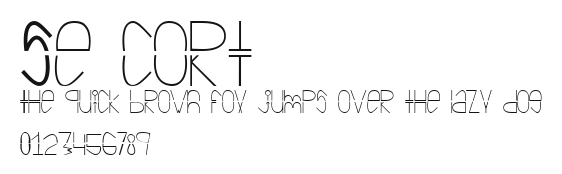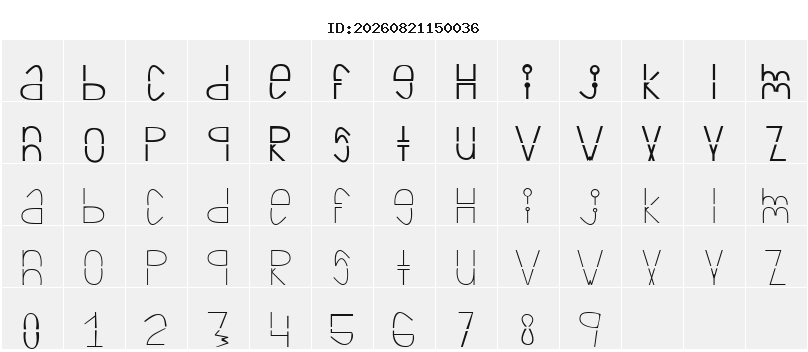
About Se cort—.ttf
Se cort—.ttf is a modern, elegant sans-serif font designed for ultimate readability and visual harmony. Perfect for branding, headlines, web design, and print materials.